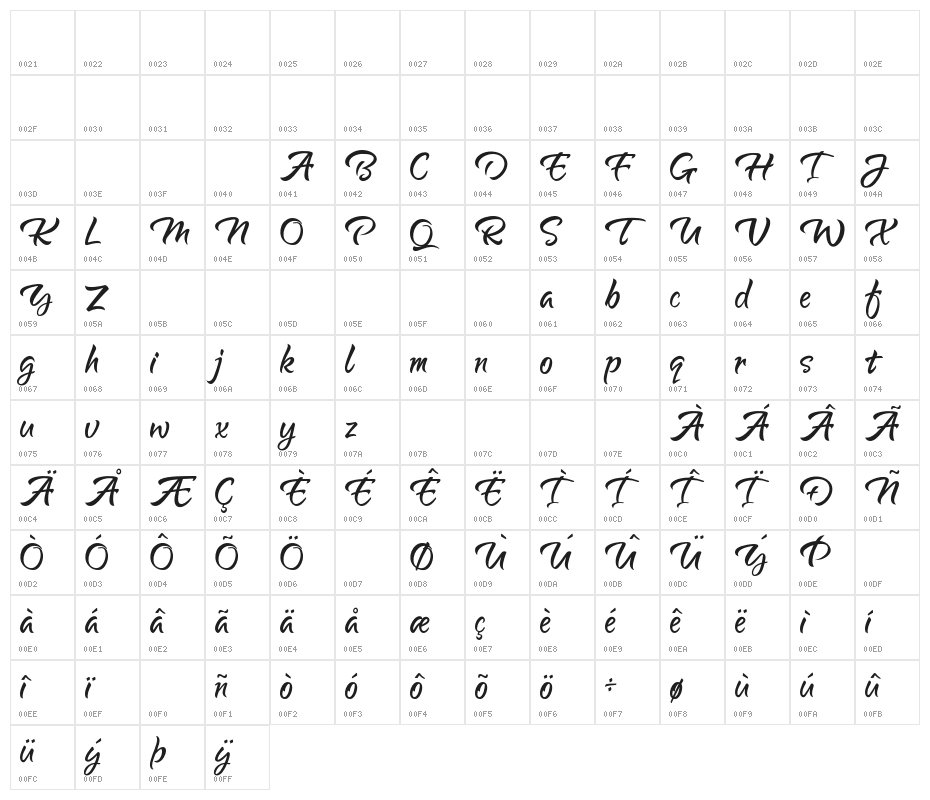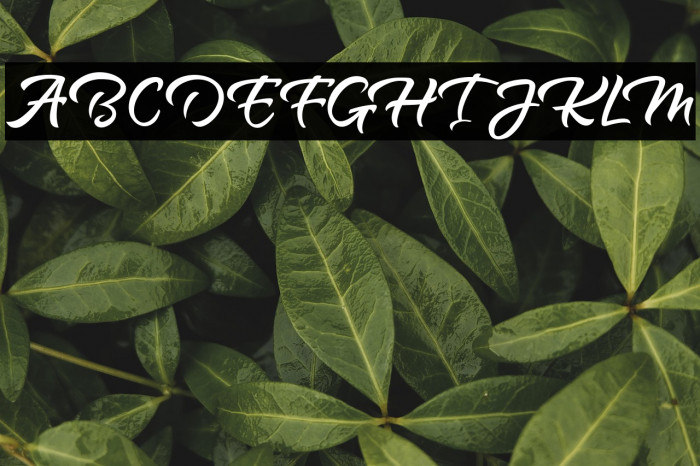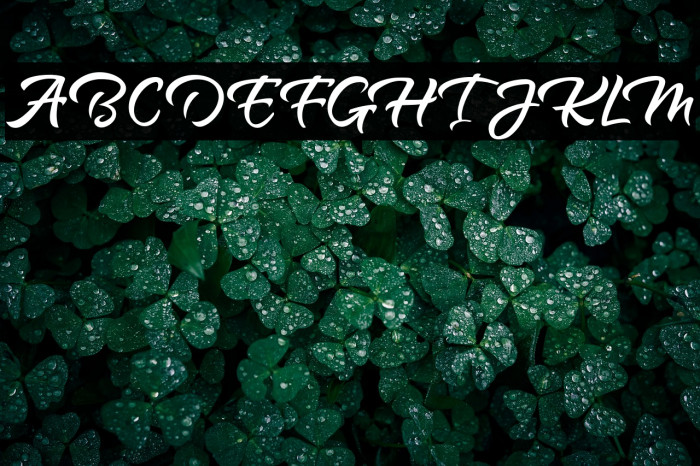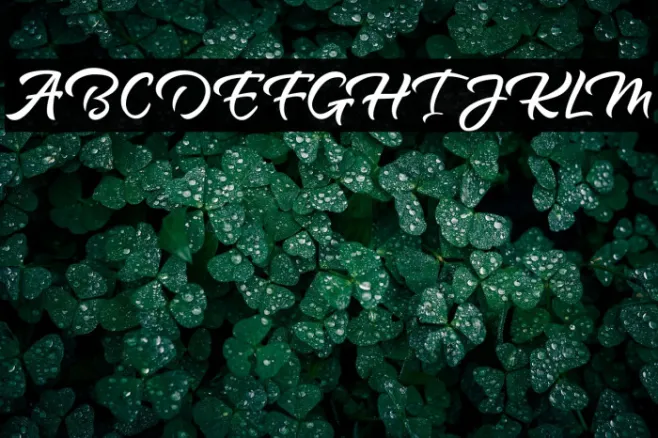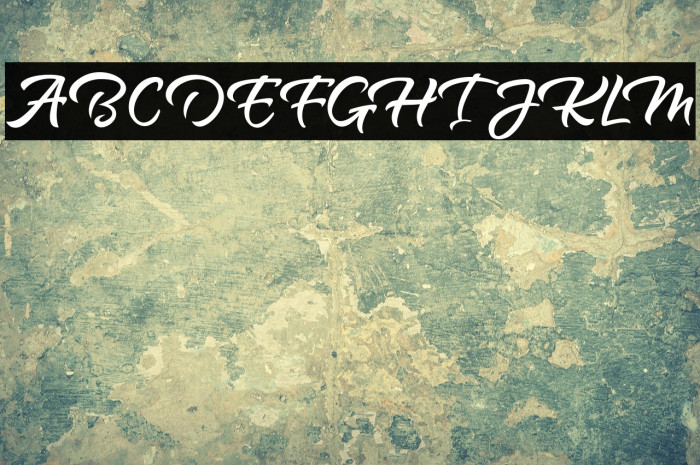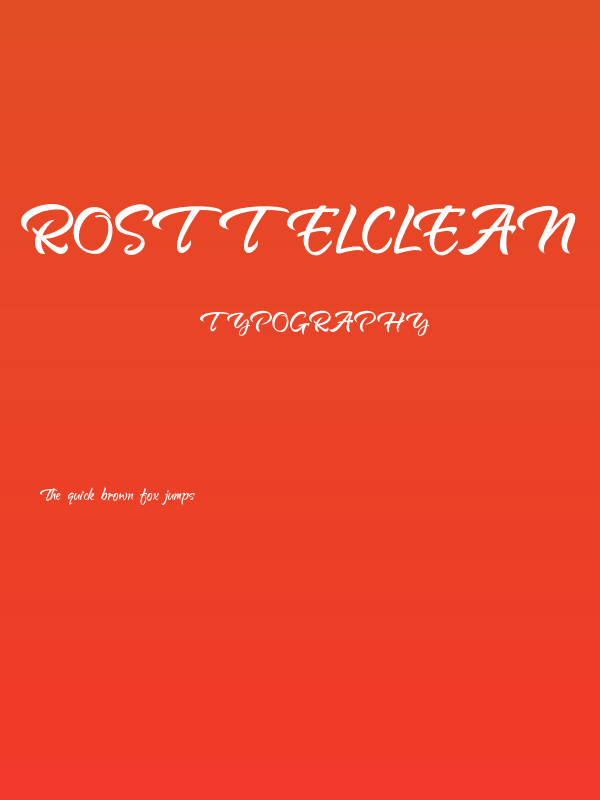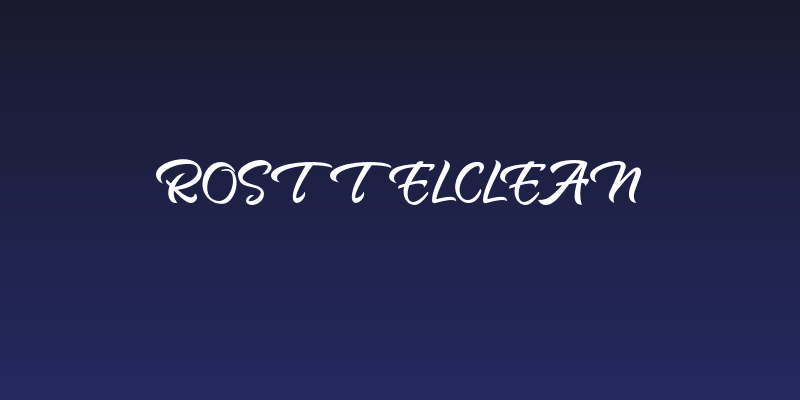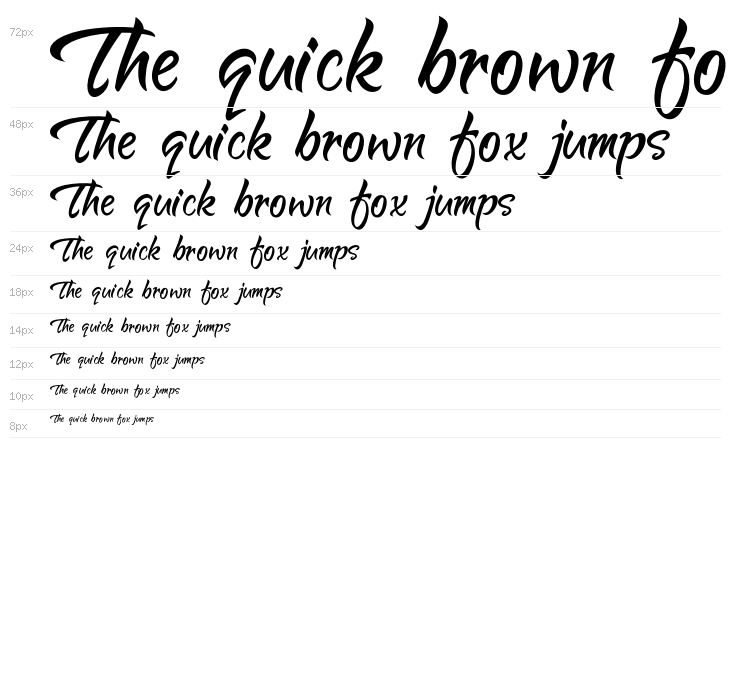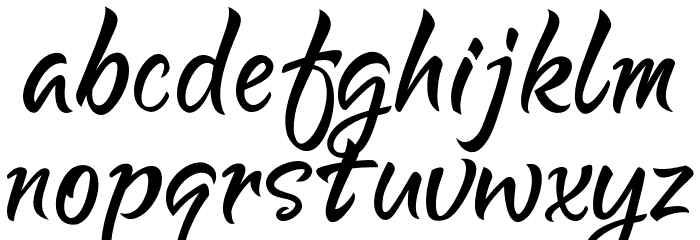
RosttelClean Font
RosttelClean Description
This font features a dynamic and flowing script style, characterized by its elegant and cursive letterforms. The uppercase letters exhibit a graceful and sophisticated appearance, with sweeping curves and fluid connections between strokes. The lowercase letters maintain a consistent flow, enhancing the overall harmony of the typeface. The font's design is both expressive and refined, making it suitable for projects that require a touch of elegance and personality. Its artistic flair is evident in the way each character is crafted, offering a sense of movement and rhythm. The font's style is versatile, allowing it to be used in a variety of contexts where a decorative and stylish script is desired.